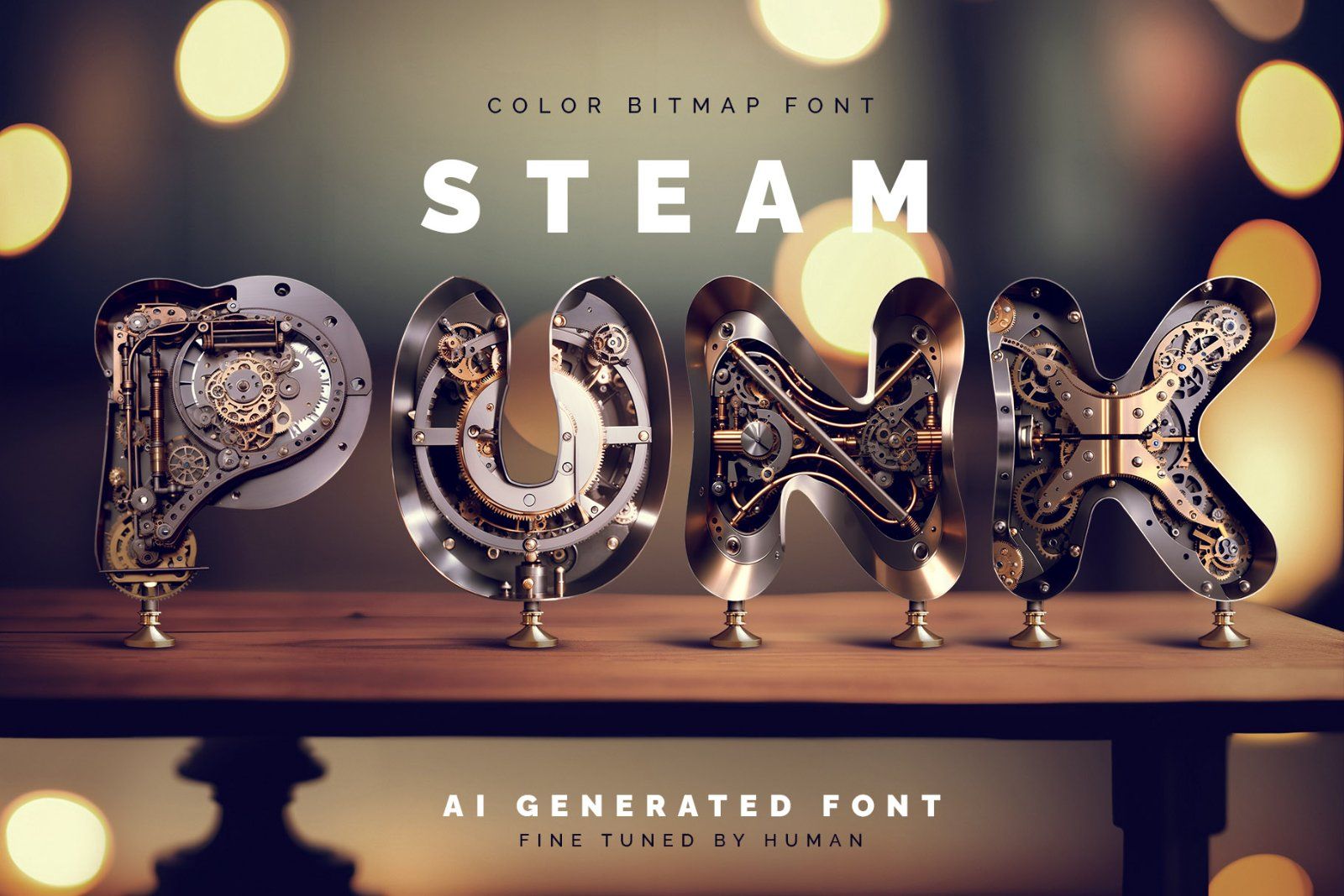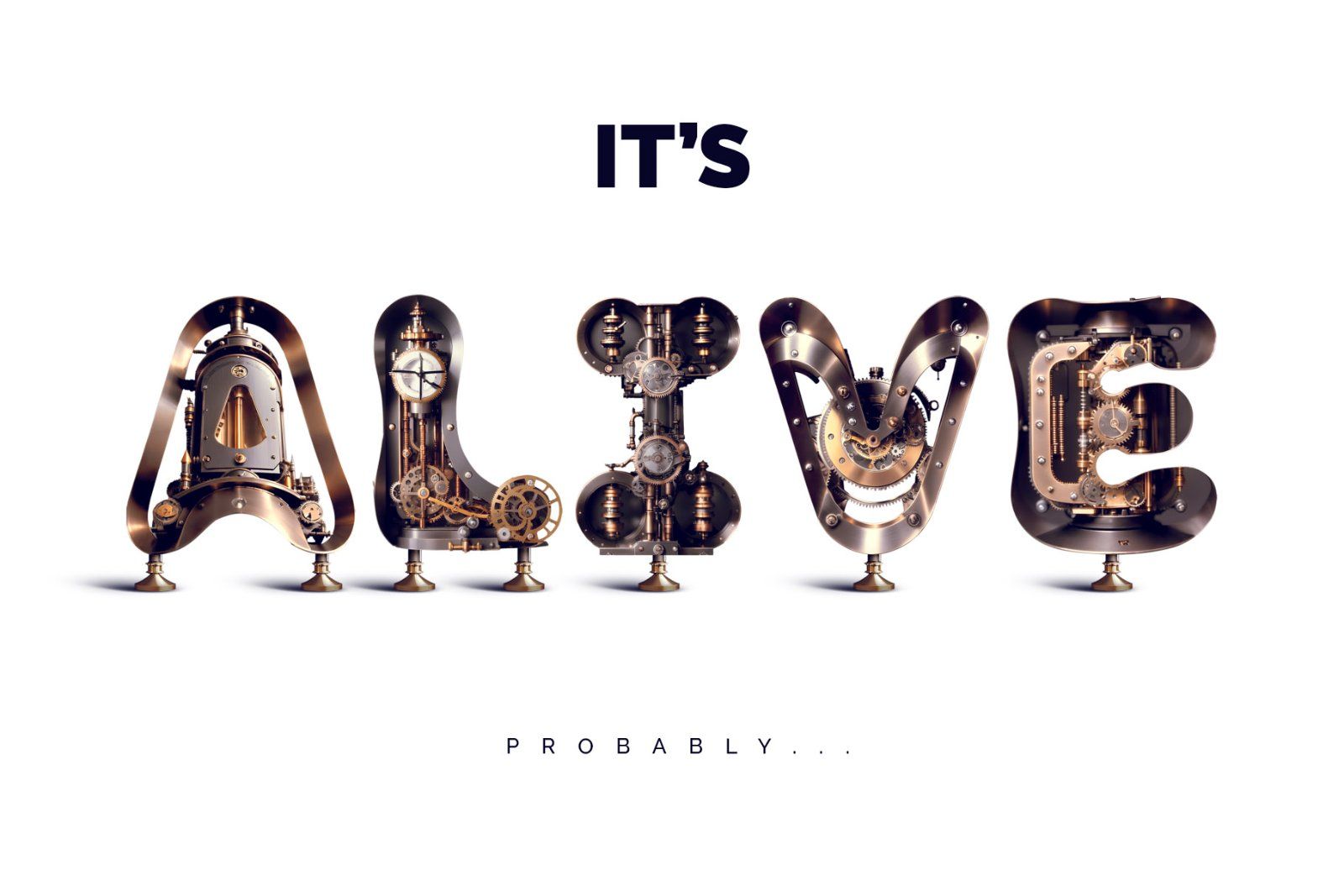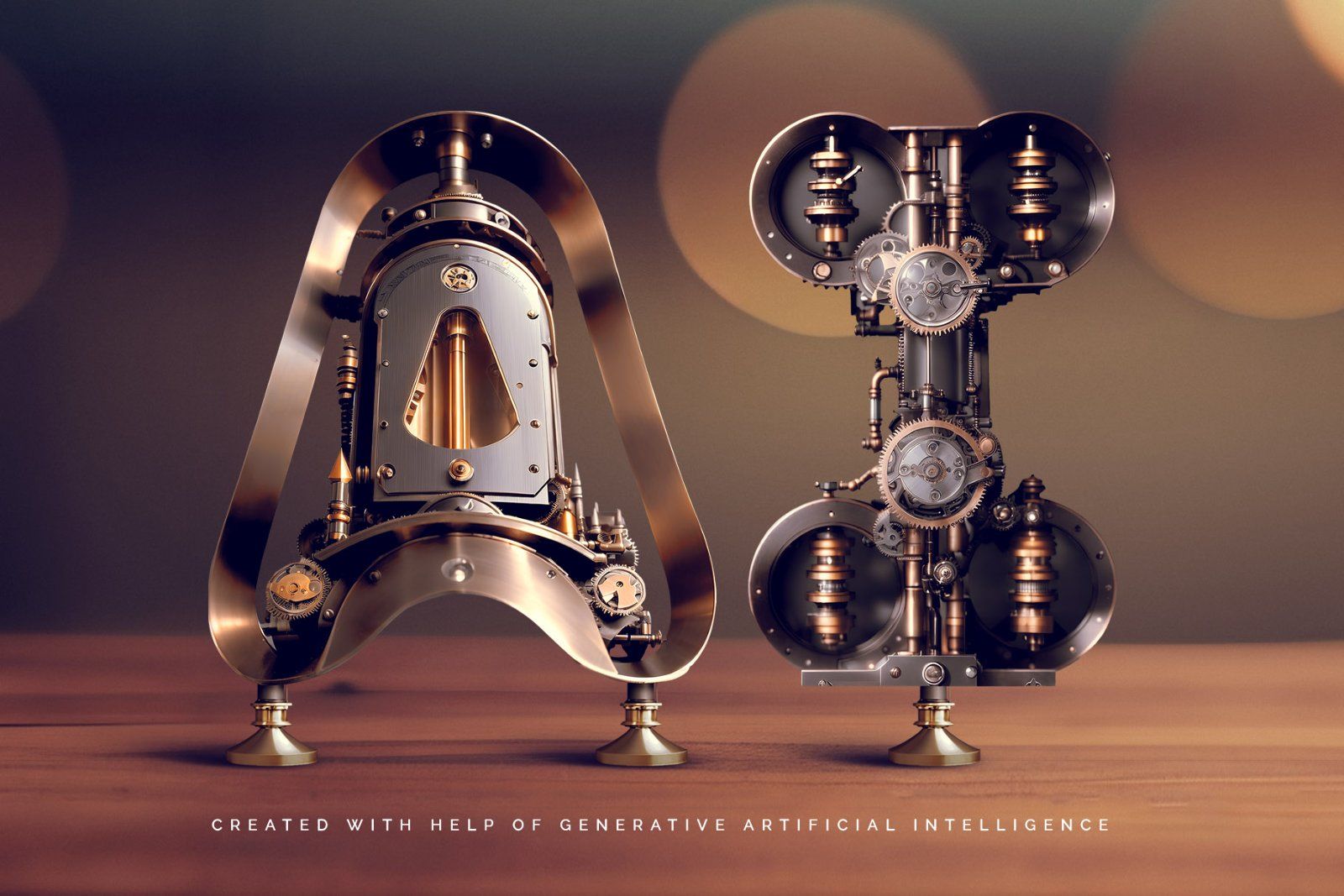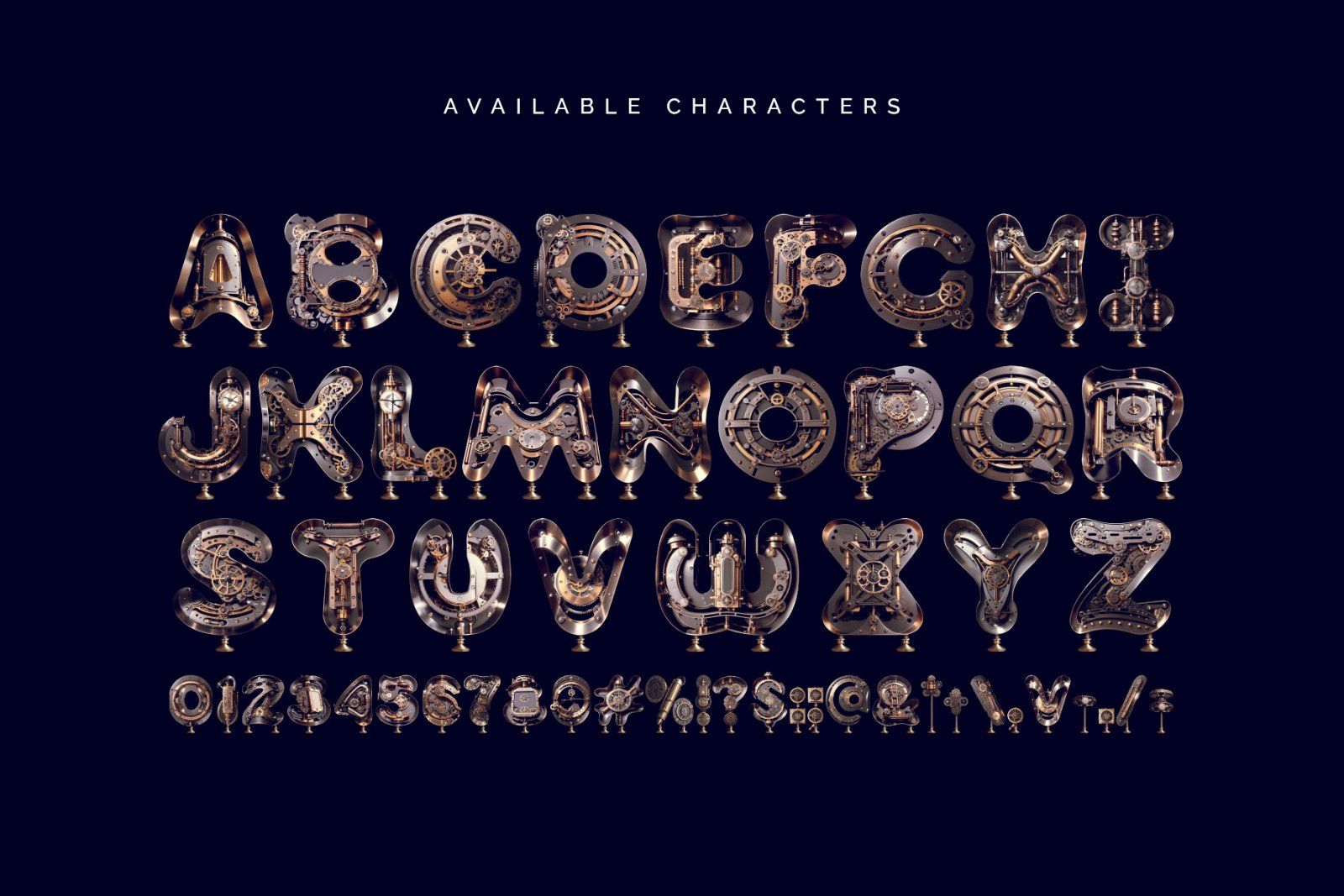
Hello! Presenting a vintage look raster font SteampunkAi. This font was made using an amazing and trending nowadays Generative Ai technology.
First of all, it's a color bitmap OpenType-SVG font that can be used as a usual OTF font. The resolution of an OTF file is roughly 700 px height. An included PNG files with transparent background has around 1500 px height. Please consider that only the English language and basic punctuation are available, please check out the screenshot with all existing characters.